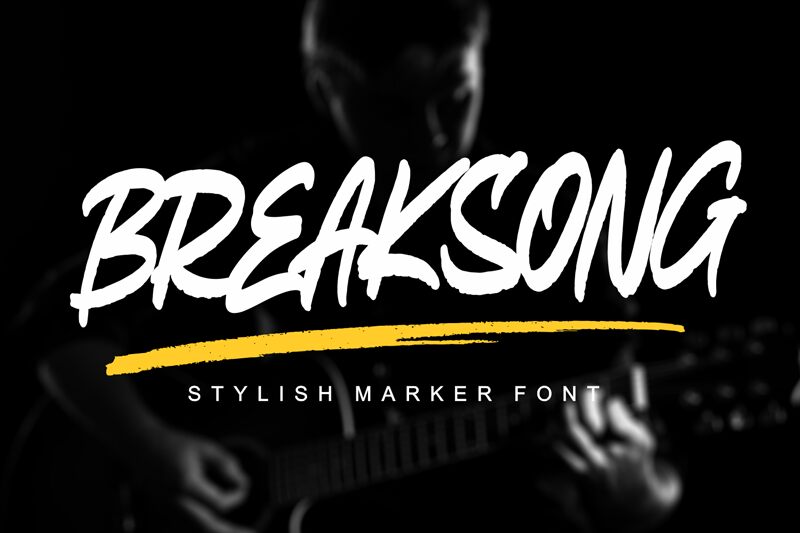
BREAKSONG ROUGH
Introducing Breaksong Rough, a brush script font from Mozatype. This modern and stylish font family is perfect for everything from logo design to product packaging. Its unique brush strokes create an inviting look, allowing your design to stand out. Breaksong Rough is ideal for greeting cards, posters, wedding invitations and more!